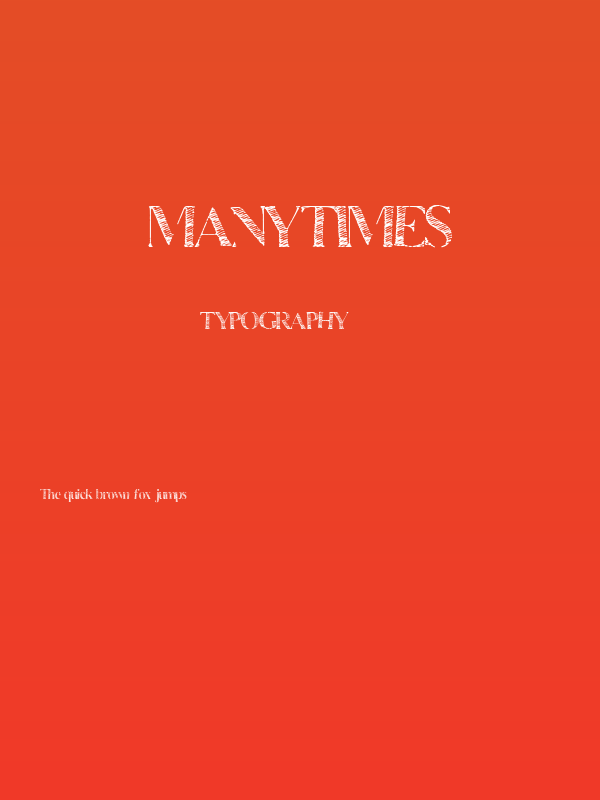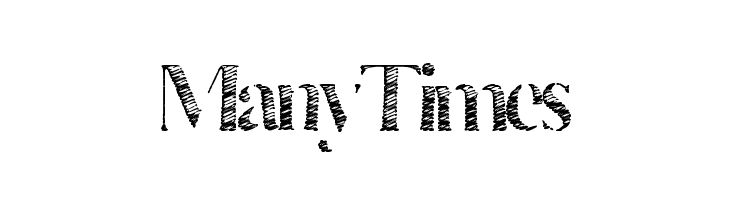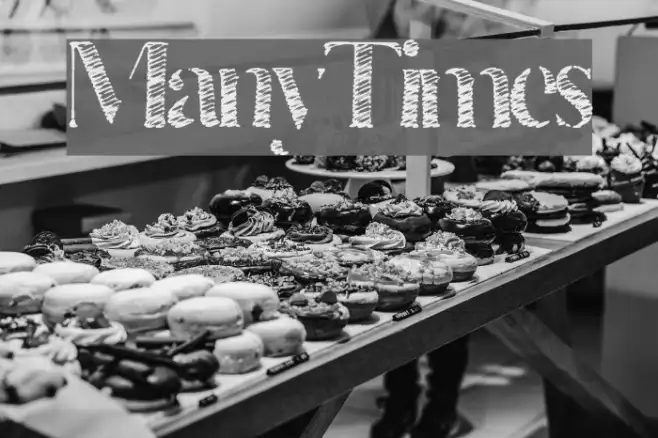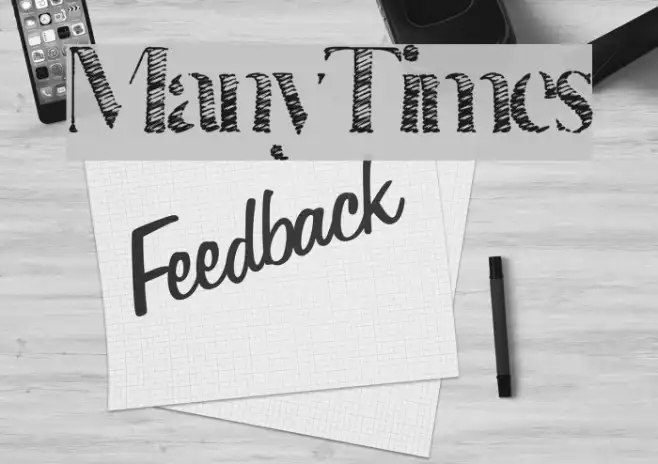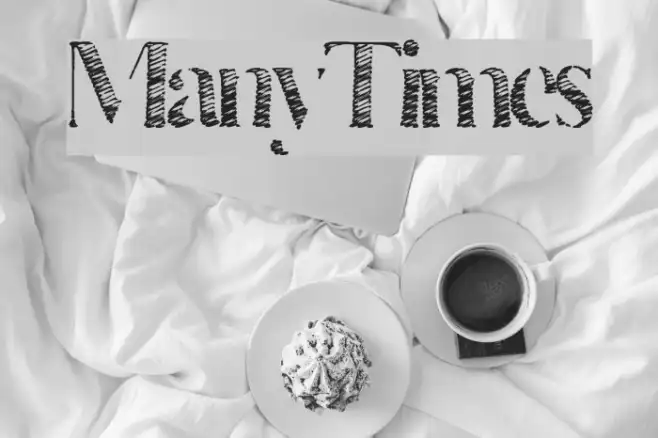
ManyTimes Font
ManyTimes Description
This font features a unique, textured design that mimics the appearance of hand-drawn lines, giving it a dynamic and artistic feel. The uppercase and lowercase letters are bold and slightly slanted, creating a sense of movement and energy. The numerals and special characters maintain this textured style, ensuring consistency across all glyphs. The font's distinctive look makes it stand out, with each character appearing as if it has been carefully sketched with a pen. This artistic approach adds a layer of depth and personality, making it suitable for creative and expressive projects.
| Overall Style | Artistic, Dynamic |
| Proposed Projects | Ideal for posters, artistic branding, album covers, and creative advertising. |